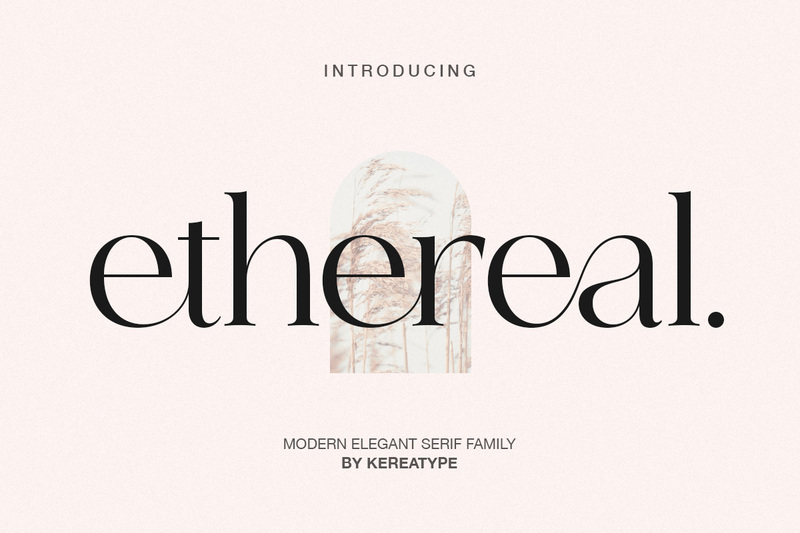
Ethereal Font
Designed by Kereatype Studio
Ethereal – Modern Serif Font Family
Crafted by Kereatype, Ethereal is a sophisticated serif font that merges timeless elegance with contemporary flair. With 9 weights (Thin to Black) and 415 glyphs, this font family delivers versatile luxury for high-end branding, logos, editorial layouts, and packaging.
Designed with insights from seasoned graphic designers, Ethereal answers the demand for unique yet refined typography that captivates. Ideal for luxury logos, wedding invites, magazines, or product labels, Ethereal’s balanced curves and modern details ensure your designs radiate effortless class.
Whether for print or digital, this font family elevates every project with charm and professional polish. Unlock modern elegance—choose Ethereal, where heritage meets innovation in every letter.